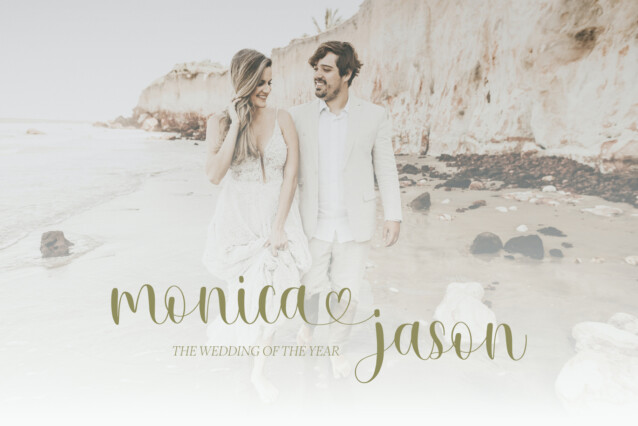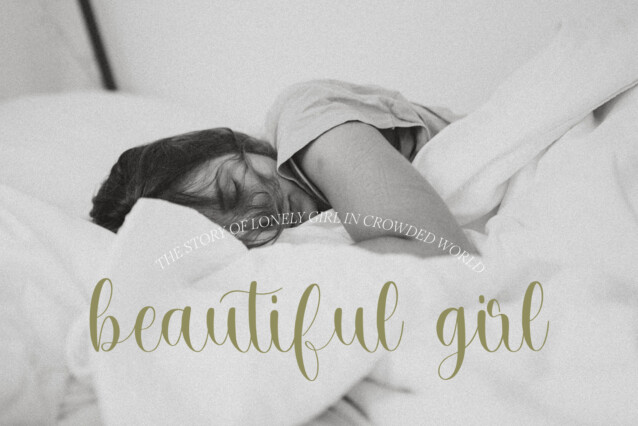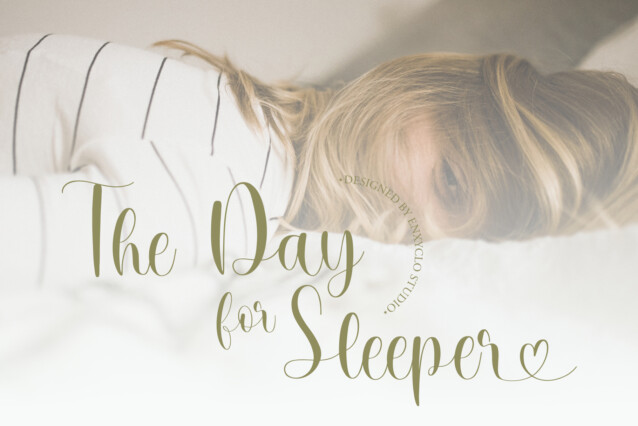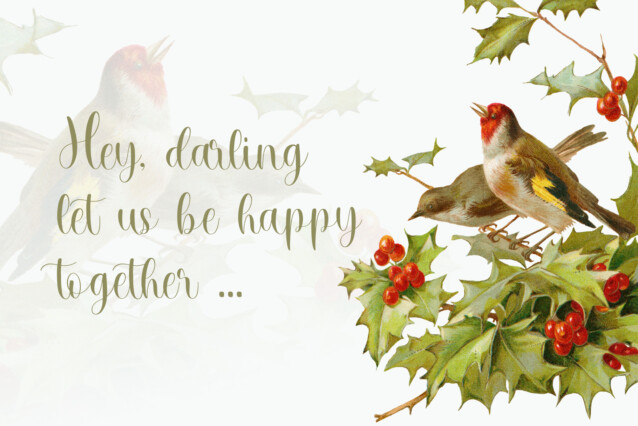
NCL Misty Bouvre Font
NCL Misty Bouvre Font is a unique script font. Masterfully designed to become a true favorite, this font has the potential to bring each of your creative ideas to the highest level! It was purposely crafted to be used in large point sizes, although it doesn’t lose its magic in small point sizes. It is perfect for wedding, headline, billboard, magazines, website, titles, poster, branding, and logos. No matter the topic, this font will be an incredible asset to your fonts’ library, as it has the potential to elevate any creation. With this beautiful font, absolutely you can make your project stand out from the rest.